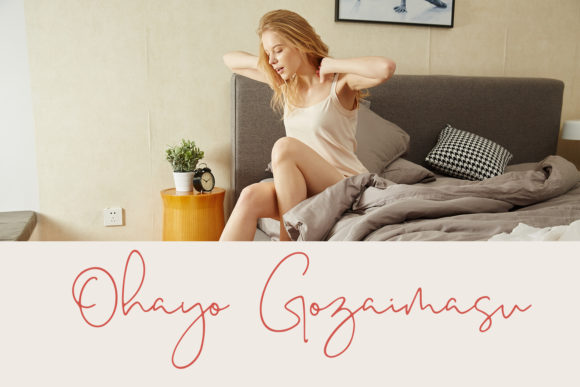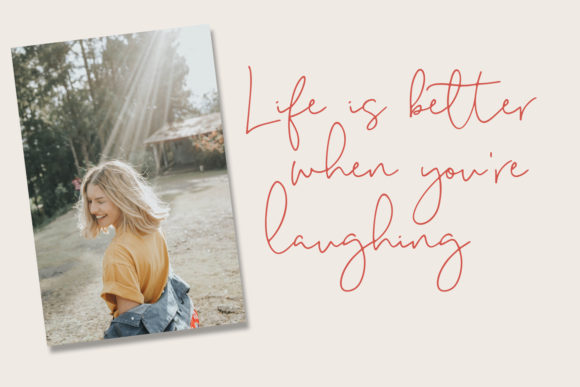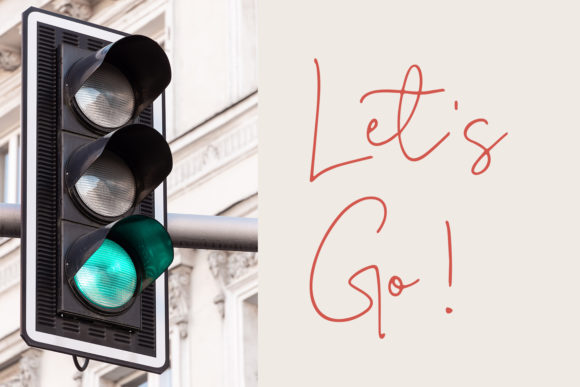
Introduction to Melatti Font
Melatti is a fun and cute handwritten font with an amazing feel.
It will add a smart charm to any design project .
Melatti Font offers exceptional quality and versatility, making it a valuable addition to your design toolkit. Whether you’re creating for personal projects or commercial use, Melatti Font delivers professional results.